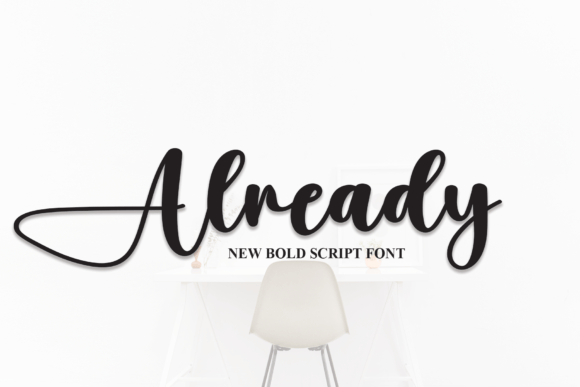
About Already Font
Already is not just a font; it’s a beautifully crafted handwritten script that adds a touch of elegance and personality to a wide array of creative projects. This versatile typeface is well-suited for wall displays, wedding invitations, social media posts, logos, advertisements, product packaging, and a variety of other design applications.
What makes Already stand out is its graceful and flowing script. The characters are meticulously designed, combining an elegant style with a touch of informality, making it suitable for projects that demand both sophistication and approachability.
In wall displays and wedding invitations, Already brings a sense of grace and style. Its handwritten script adds a personal and romantic touch, ensuring that your designs radiate elegance and warmth. Whether it’s a special event or a visual statement, Already adds a layer of sophistication.
For social media posts, logos, and advertisements, Already’s elegant script enhances the overall appeal of your brand. The graceful design adds a touch of sophistication, making Already a versatile choice for projects where a sense of refined style is desired.
In product packaging and label designs, Already’s elegant and handwritten style can convey a premium feel and a connection to the audience. The blend of sophistication and personal touch makes it an excellent option for brands that want to establish a refined and approachable identity.
By incorporating Already into your font collection, you’re not just adding a typeface; you’re selecting a design element that brings an air of elegance and personality to your wall displays, wedding invitations, and various creative projects. Already is more than a font; it’s an embodiment of handwritten grace that transforms your designs into refined and genuinely captivating works of art.